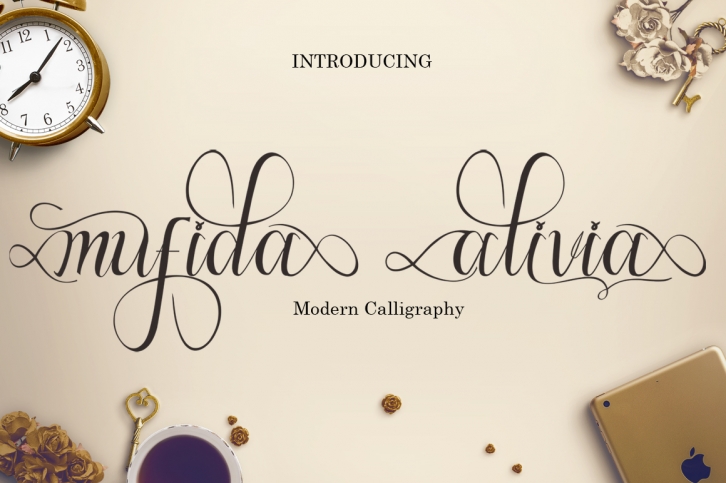
Mufida Aivia is a beautiful hand lettered calligraphy font that is comprised of stunning waves and a natural flow. This font has a unique letter style, and is soft and smooth for a subtlety of elegance and grace.